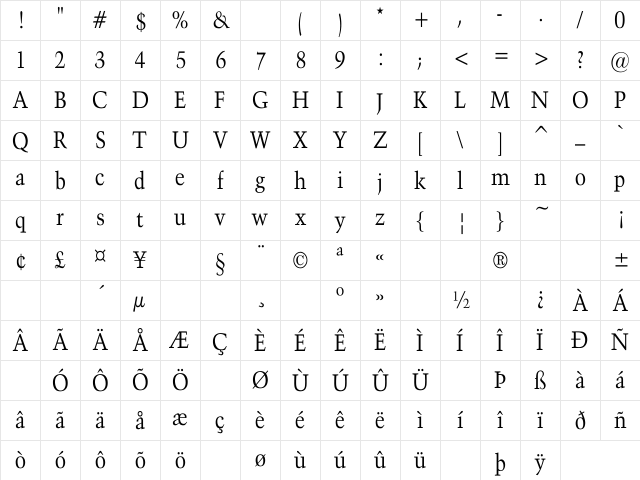
Activa Th Regular
Design Context for Activa Th
Activa Th is a composed and adaptable typeface that performs quietly and consistently across a wide range of design contexts.
Pro Tip: Use Activa Th in both headline and body roles to test its range before committing to a single application.